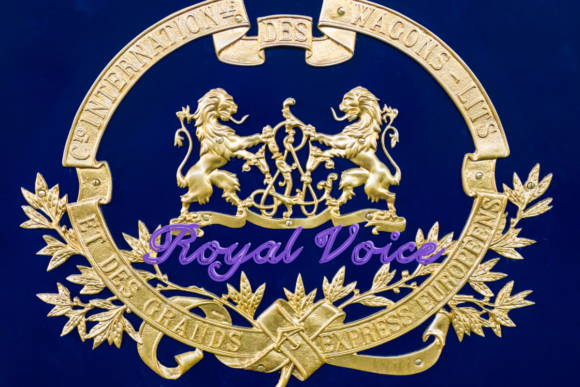
About Royal Voice Font
Royal Voice is a cute and delicate script font. It will elevate a wide range of crafting ideas, from cards, to branding, labels and much more.
Add it confidently to your favorite creations and let yourself be amazed by the outcome generated.Â